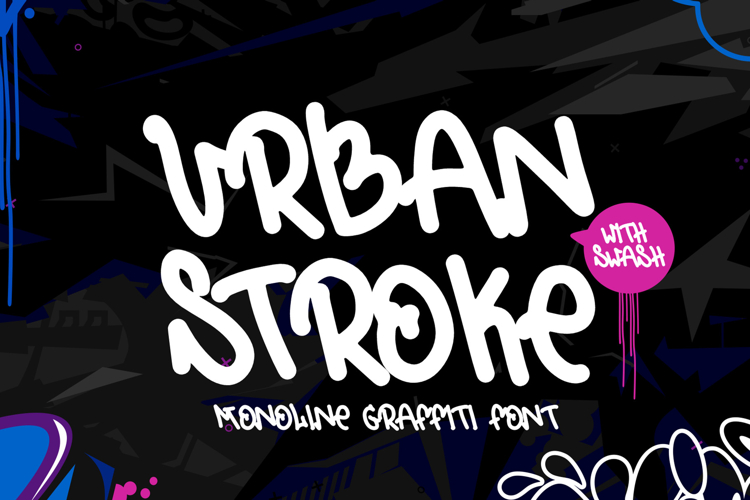
Urban Stroke - Natural Monoline HAndwritten Graffiti Font
Urban Stroke is a sleek and stylish monoline graffiti font that blends the raw energy of street art with a clean, modern design. Its smooth, continuous strokes make it versatile and perfect for various creative projects.
✨ Contemporary Graffiti Style: Urban Stroke brings a fresh take on graffiti, combining street-inspired aesthetics with minimalist monoline strokes for a unique, standout look.
🎨 Versatile Design Tool: Ideal for logos, posters, branding, and digital art, this font adapts seamlessly to any urban or edgy design concept, delivering effortless coolness.
🔥 Effortless Customization: With its balanced structure and smooth flow, Urban Stroke allows easy integration into any project while maintaining its bold and dynamic presence.